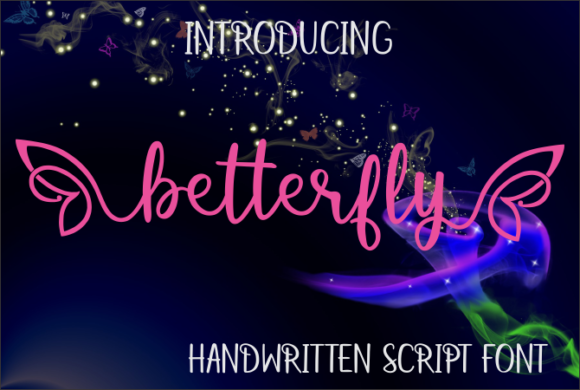
The “Wow!” Factor: Unleashing the Beauty of Betterfly Font
I’ll never forget the time I was working on a wedding invitation project, and my client asked for a font that would make their special day feel “extraordinary.” I scoured the internet, tried out countless fonts, but nothing seemed quite right. That was until I stumbled upon Betterfly Font. With its stunning handwritten script and delicate butterfly wings, it was love at first sight! In this article, I’ll share my experience with Betterfly, its unique features, and how to make the most of it in your designs.
An Honest Review of Betterfly Font
- ✨ Beautiful, romantic feel that’s perfect for weddings, invitations, and other special occasions
- ✅ Unique butterfly wing characters that add a touch of whimsy to your designs
- 💫 High-quality, handwritten script that looks elegant and sophisticated
- 🎨 Versatile font that can be used for a variety of projects, from digital to print
While Betterfly Font is an amazing addition to any design project, there are a few things to keep in mind:
- ⚠️ Some characters, like the butterfly wings, might require a bit of experimentation to use effectively
- 🤔 The font’s script style might not be suitable for very formal or corporate designs
The Story Behind Betterfly Font
Legend has it that the designer behind Betterfly Font was inspired by the delicate beauty of butterfly wings. With a passion for calligraphy and hand-lettering, they created a font that would capture the essence of romance and whimsy. The result is a stunning script that’s perfect for making your designs stand out.
Q: What makes Betterfly Font so special?
A: Betterfly Font’s unique blend of handwritten script and butterfly wing characters makes it truly one-of-a-kind.
Q: How do I access the butterfly wing characters?
A: You can usually access the butterfly wing characters by using the font’s OpenType features or glyphs panel.